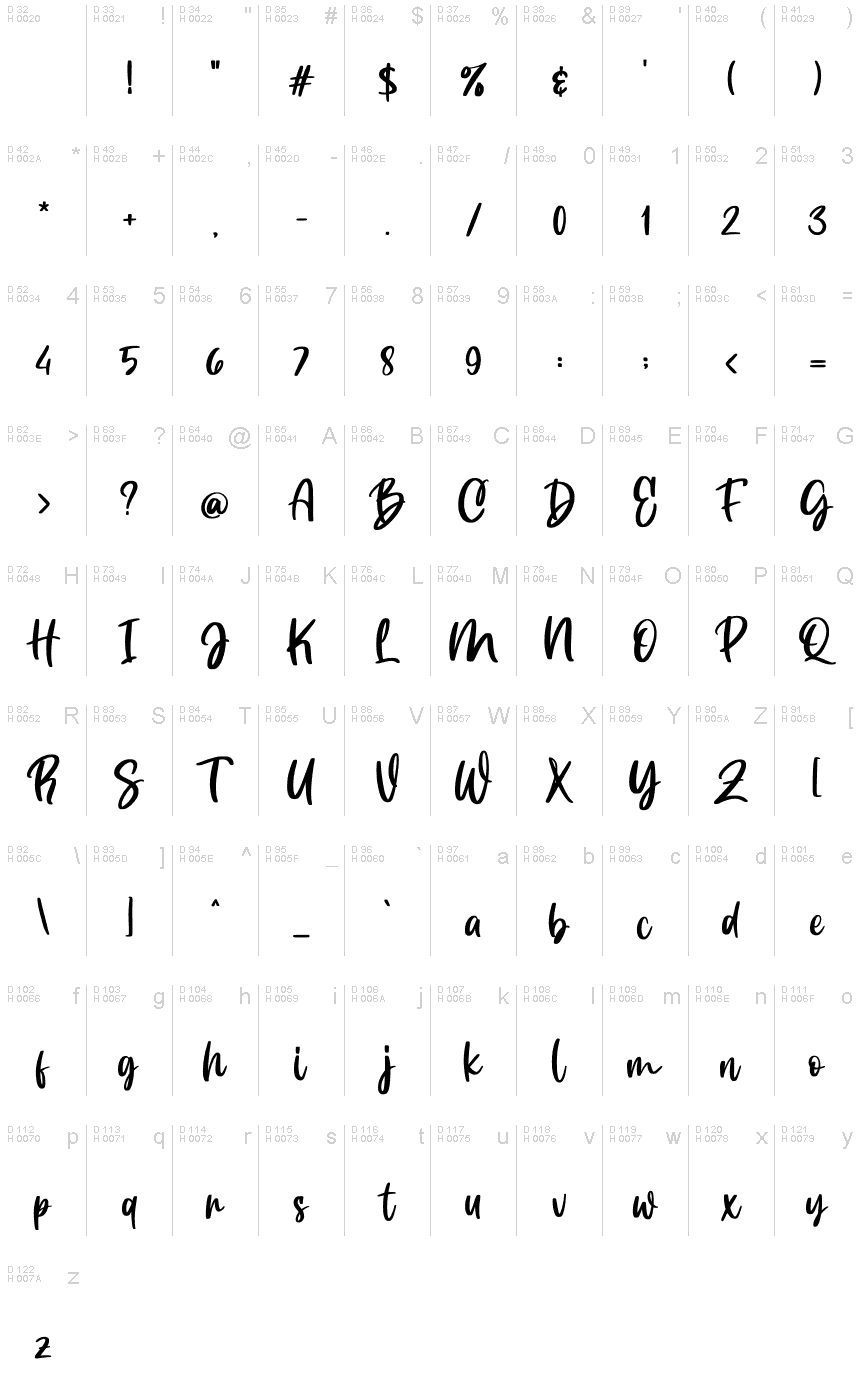
Duty Beauty Demo
Duty Beauty is a handwritten font created by Rochart Studio with a light weight. The beautiful, stylish letterforms make it perfect for creating eye-catching logos, posters, and product packaging. It can also be used to add an extra touch of personality to invitations and greetings cards.